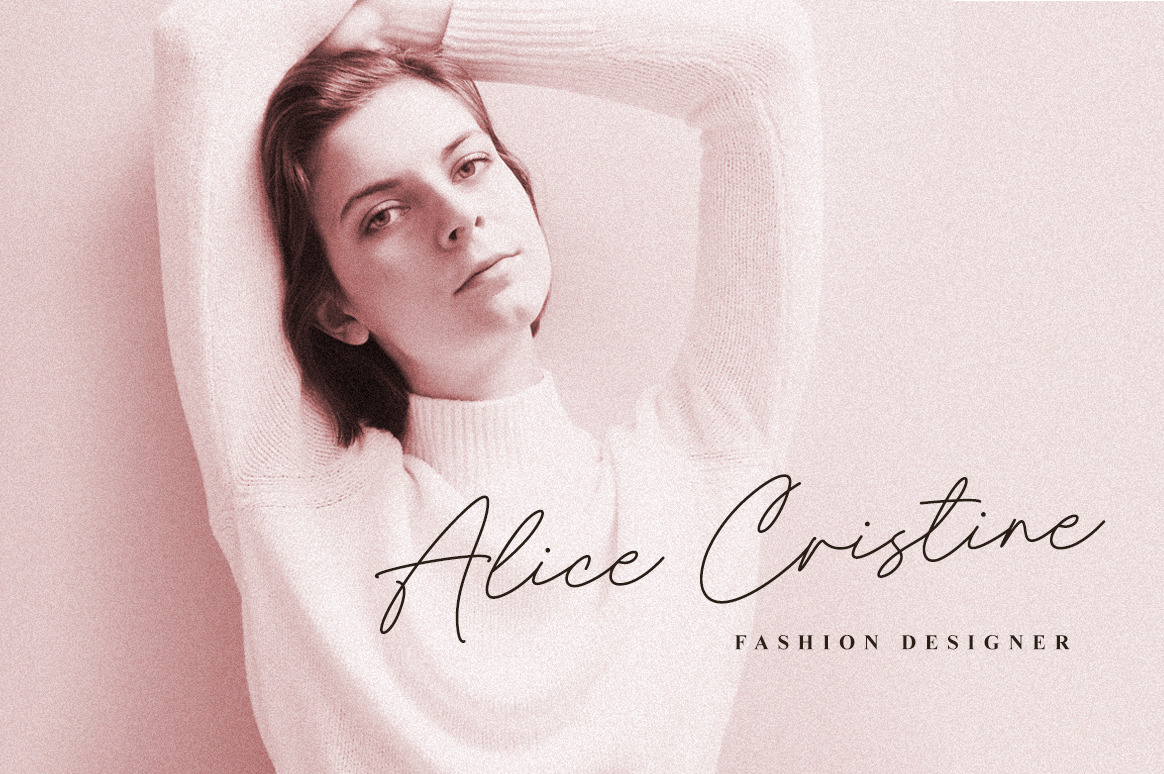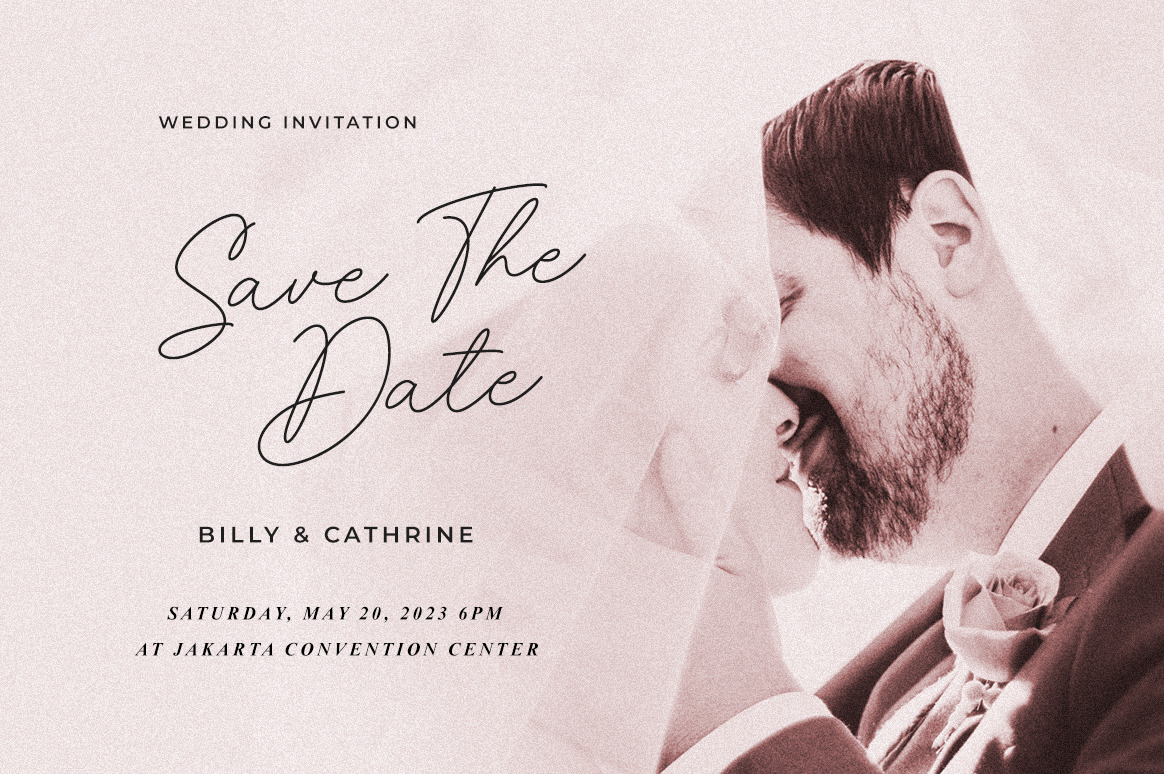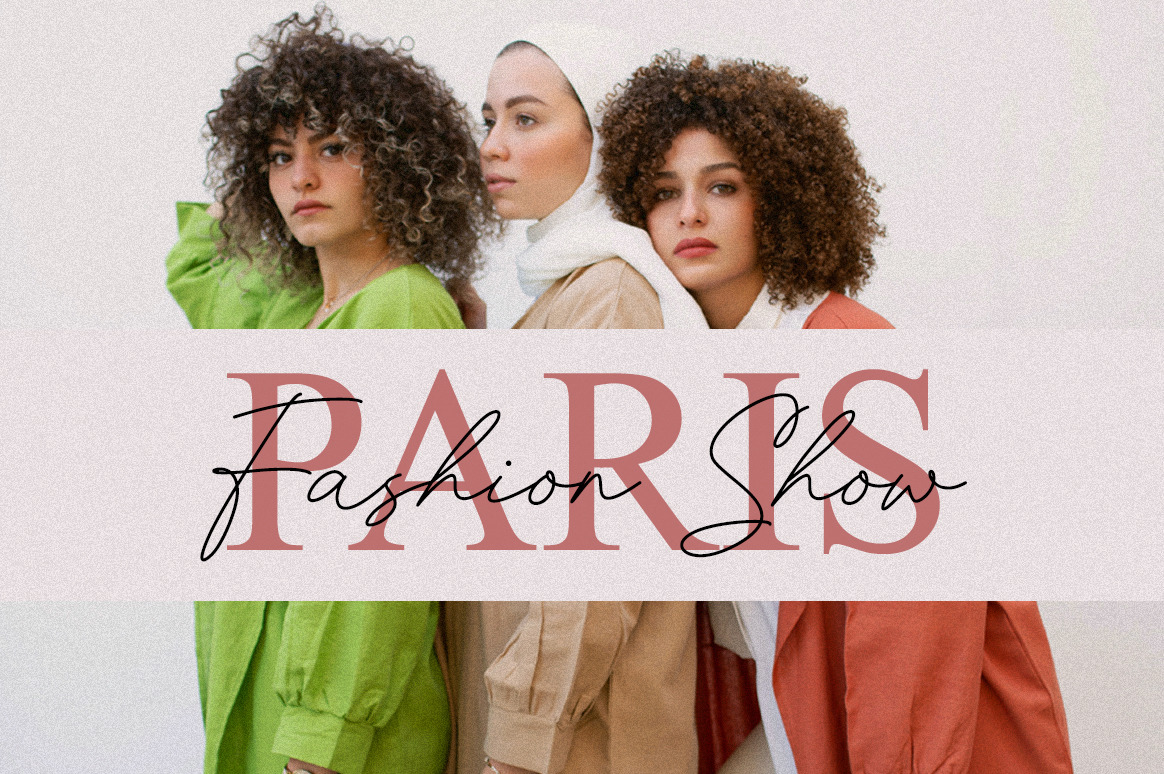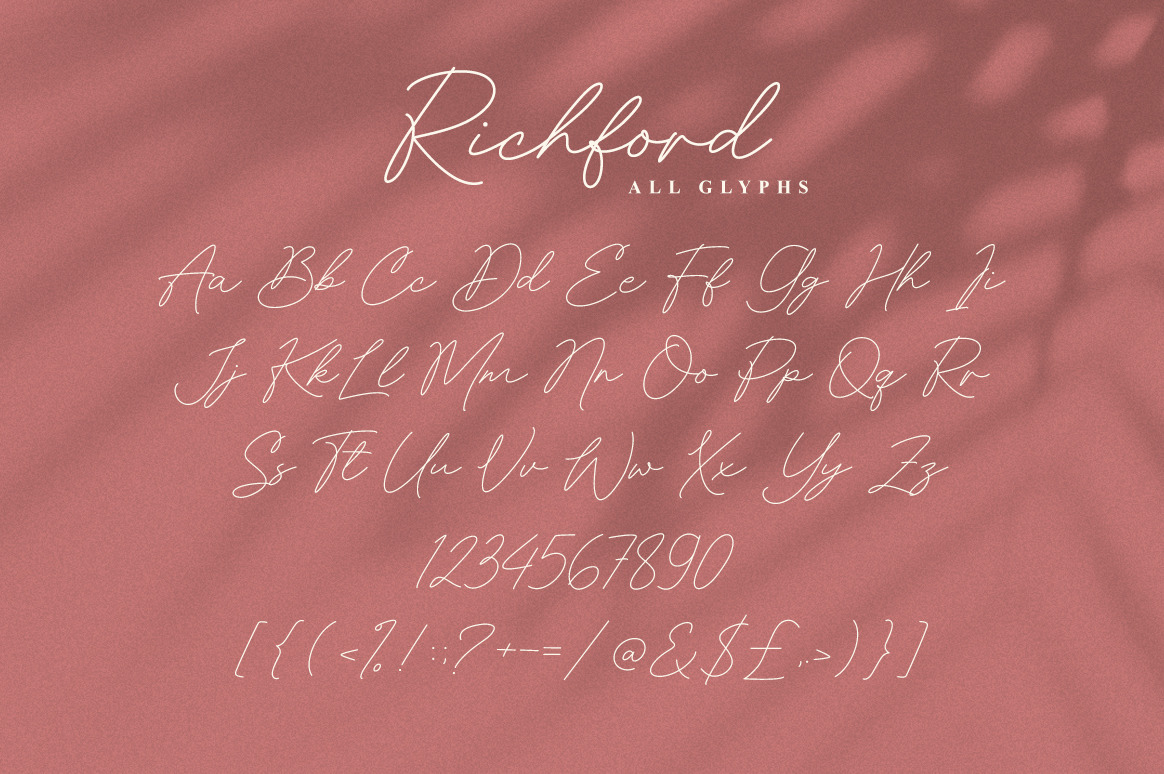
Richford Signature Font
Richford is a signature script font, described by an elegant and modern touch, perfect for your favorite projects. It looks stunning on wedding invitations, thank you cards, quotes, greeting cards, logos, business cards, social media, magazines, branding, marketing materials, and every other design which needs a handwritten touch. Fall in love with its incredibly distinct and timeless style and use it to create spectacular designs!
Richford Features:
- Regular Version
- Uppercase and Lowercase
- Numerical and Punctuation
- Alternates and Ligatures
- Multilingual Language